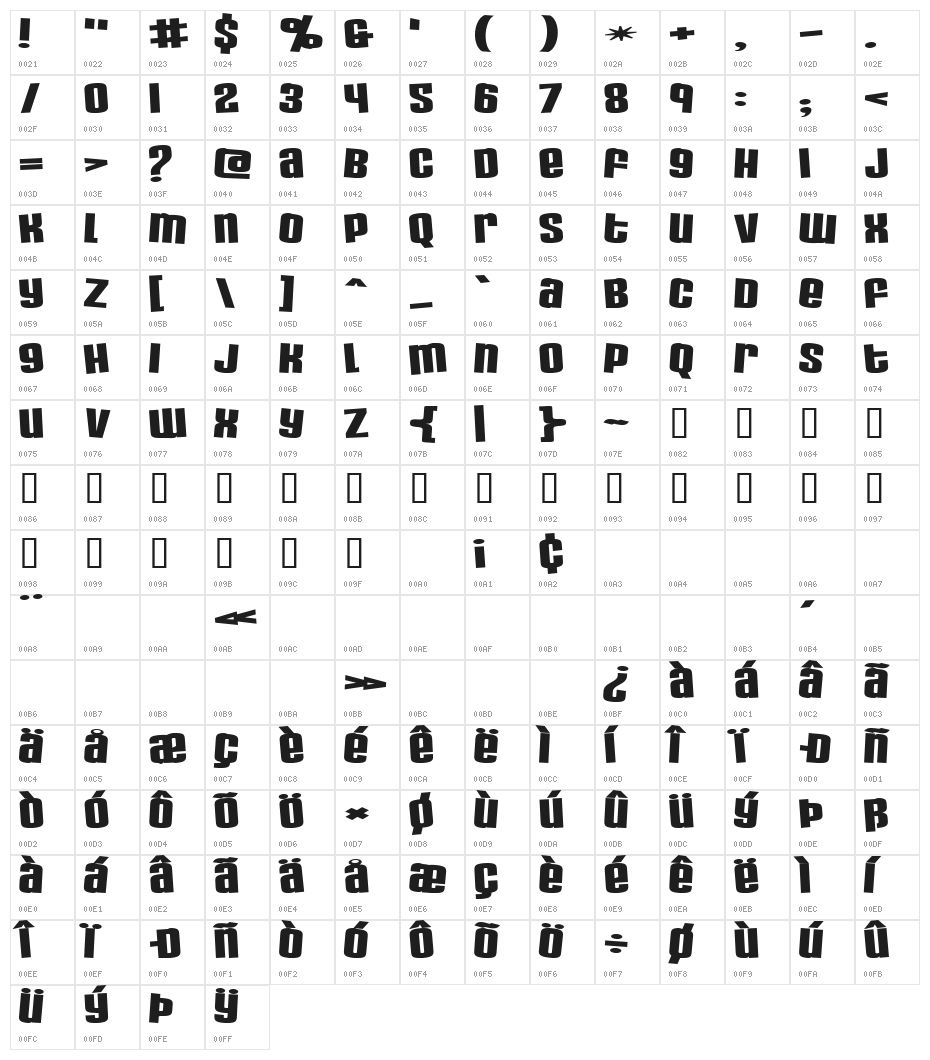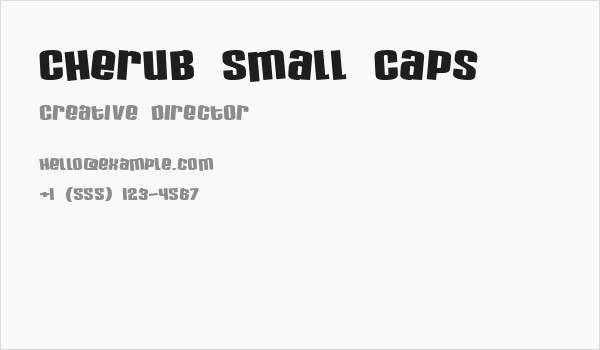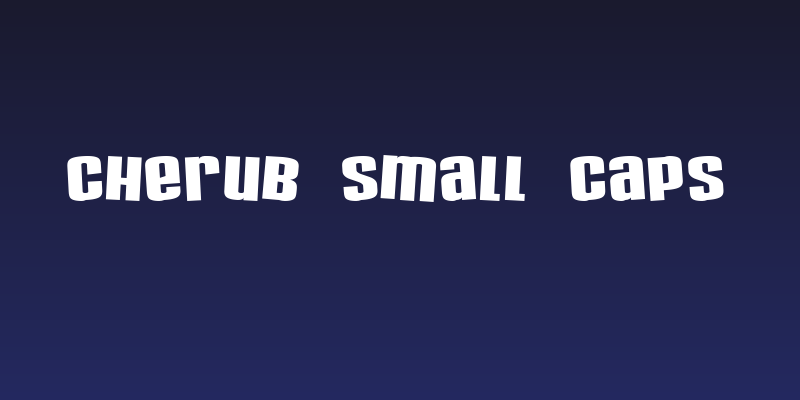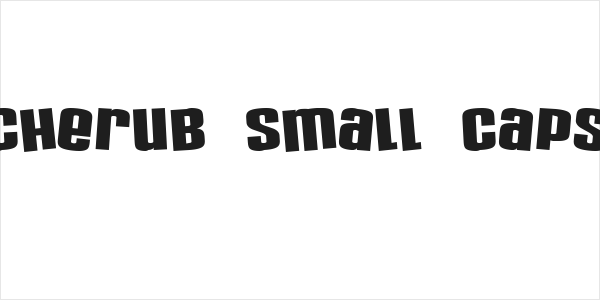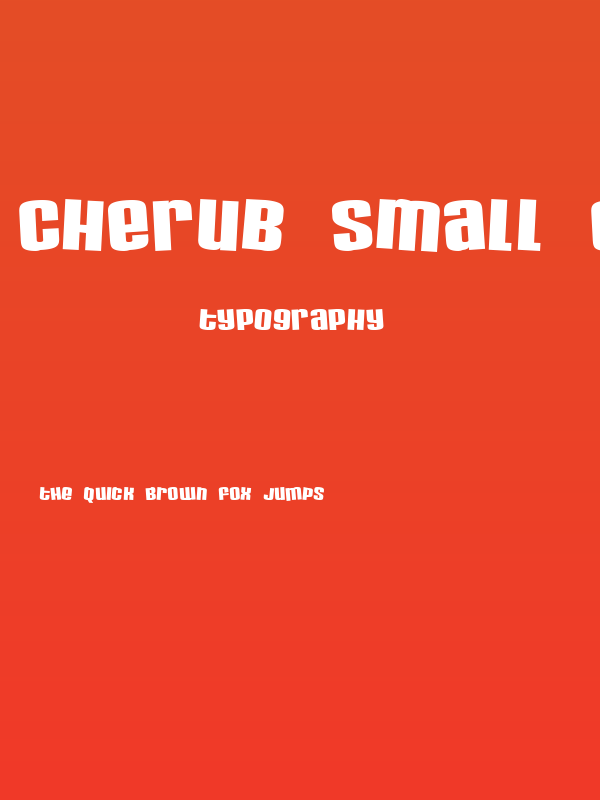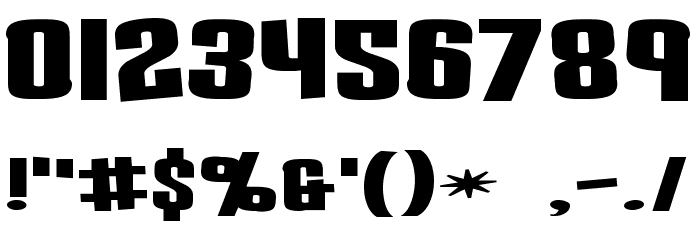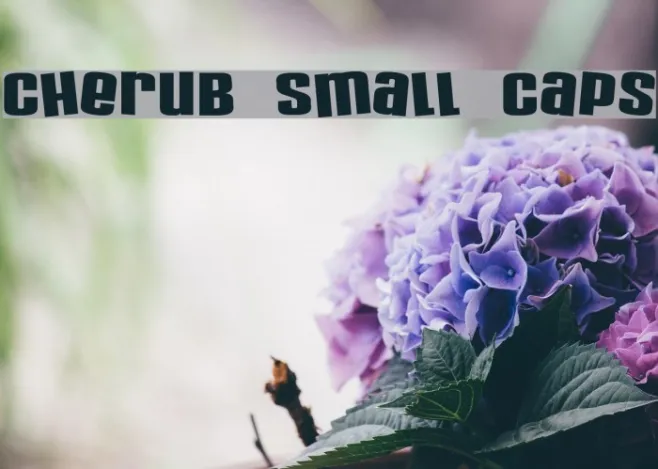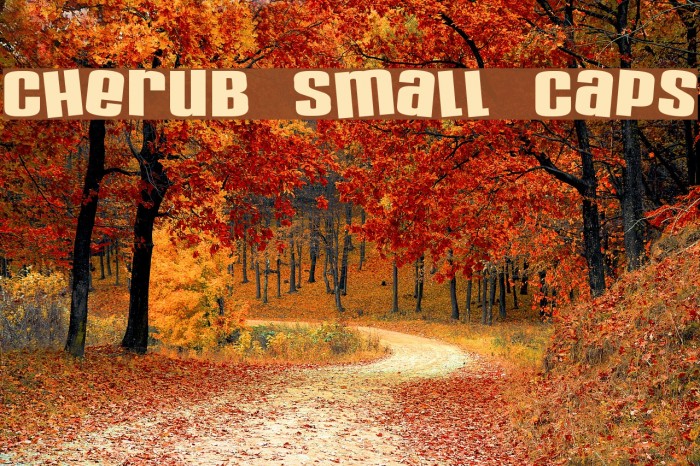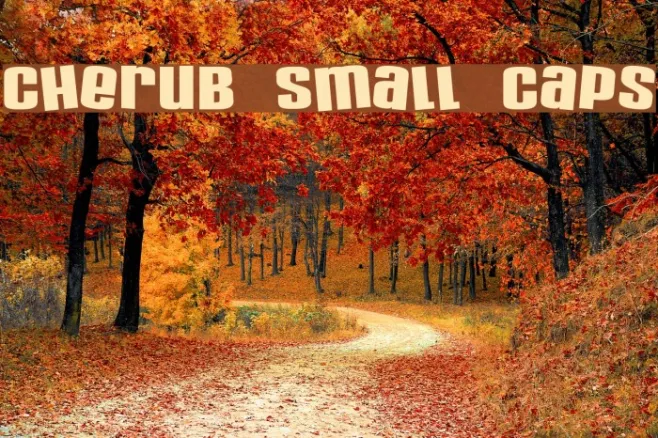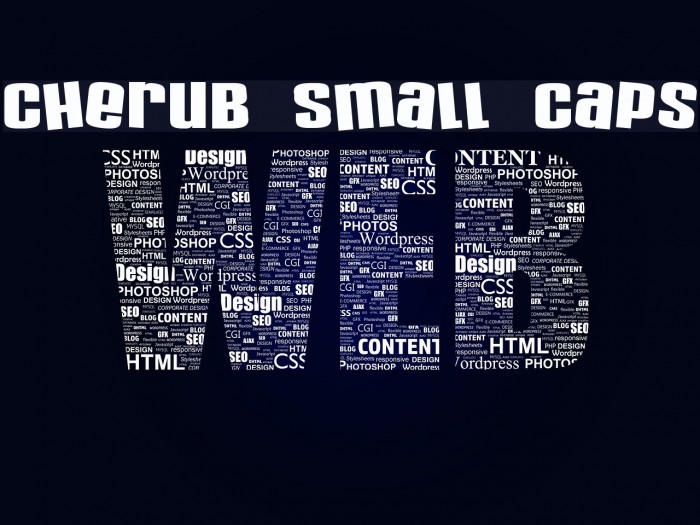
Cherub Small Caps Font
Cherub Small Caps Description
This font features a bold and playful design with a strong presence. The characters are wide and slightly condensed, giving them a robust and impactful appearance. The uppercase and lowercase letters maintain a consistent style, with a slight curvature that adds a touch of whimsy. The numbers and special characters are equally bold, ensuring readability and uniformity across all elements. The font's unique style makes it suitable for projects that require a fun and engaging look.
| Overall Style | Playful, Fun |
| Proposed Projects | Ideal for children's books, playful branding, posters, and event invitations. |